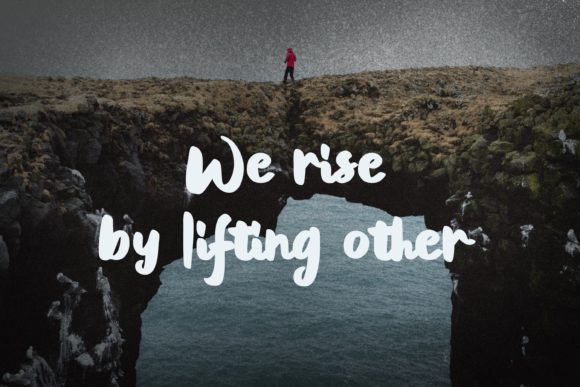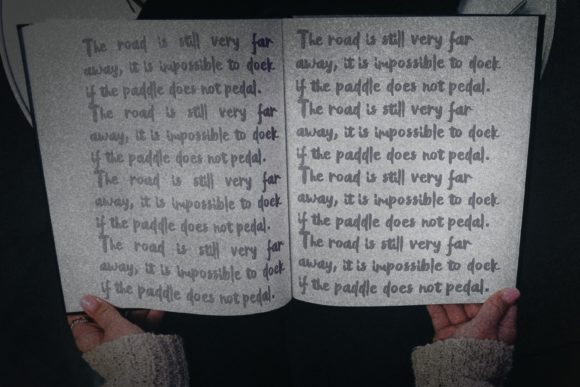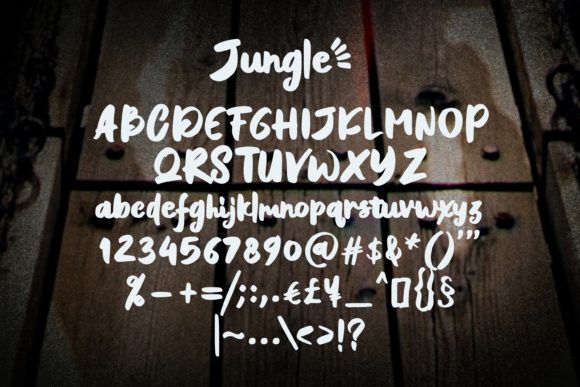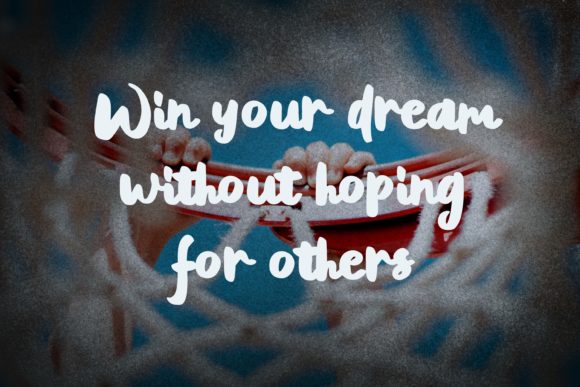
Jungle Font
About Jungle Font
Jungle is a bold and thick lettered handwritten font. It can be used for various purposes such as logos, headings, t-shirts, letterhead, signage, labels, news, posters, badges and so much more.